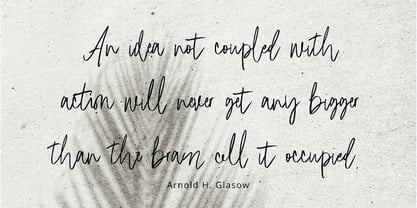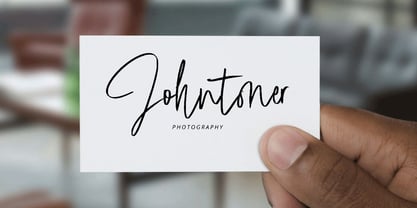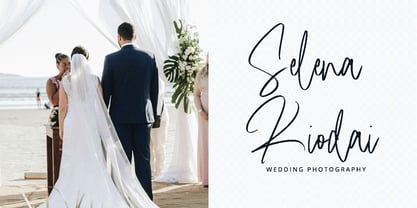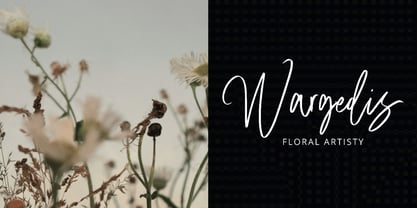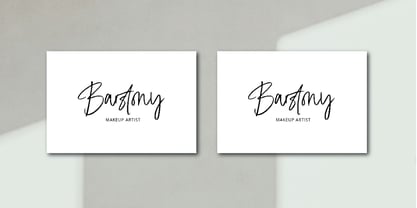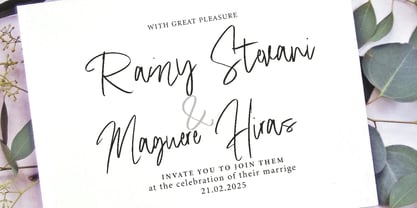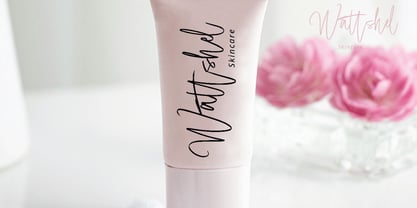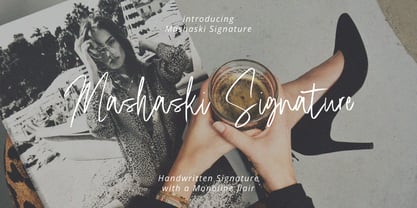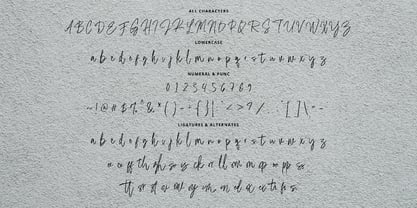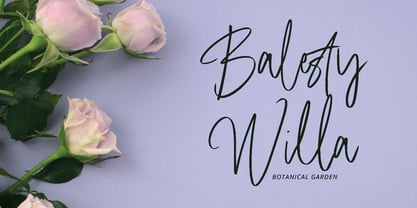
Mashaski Signature
by Pointlab
The Mashaski Signature Font Family was designed by Ferdiansyah and published by Pointlab. Mashaski Signature contains 1 styles. More about this family
Mashaski Signature is a refined, elegant script font with a monoline touch, designed to add sophistication and charm to any project. Its flowing, handwritten style makes it ideal for branding, wedding invitations, logos, and stylish social media graphics. Whether you’re crafting a personal signature or a luxury brand identity, Masha Signature delivers effortless beauty and professionalism.
Designers: Ferdiansyah
Foundry: Pointlab